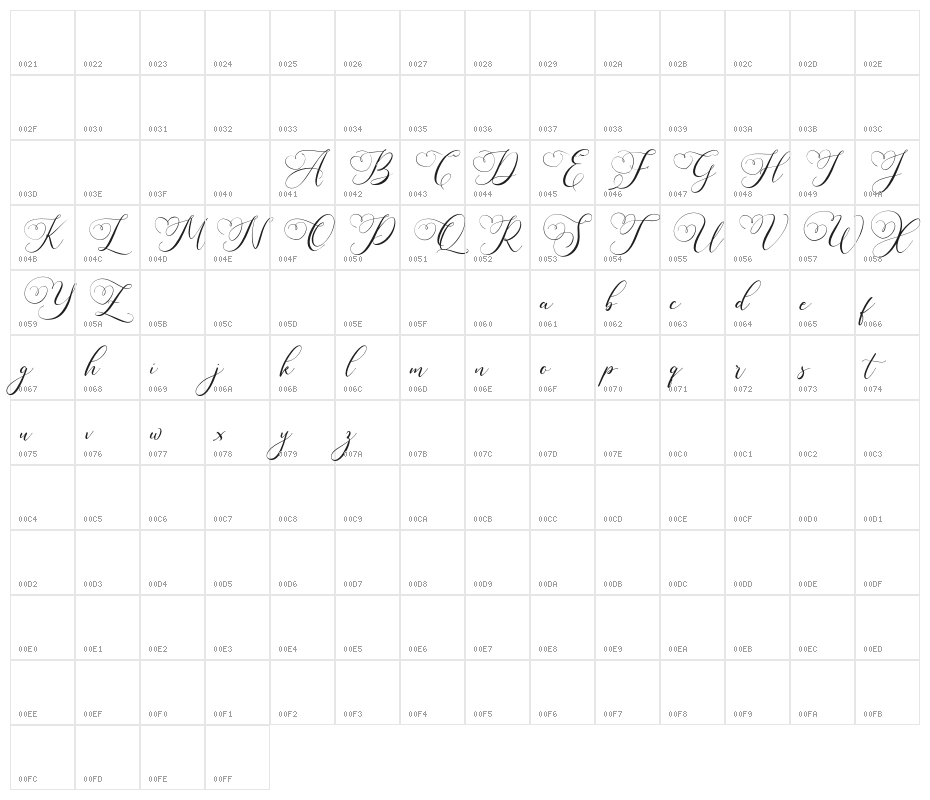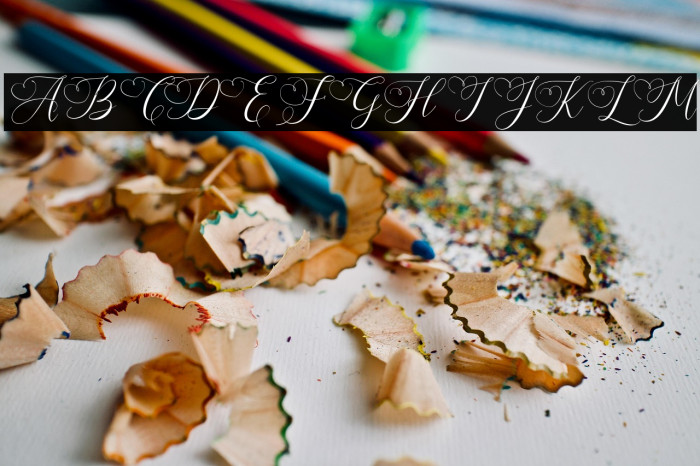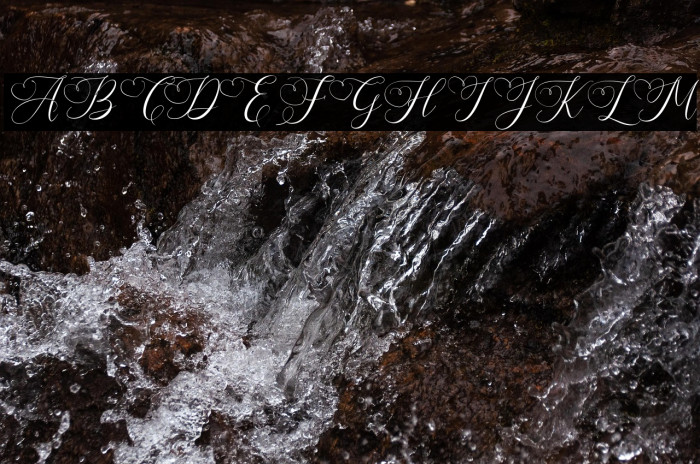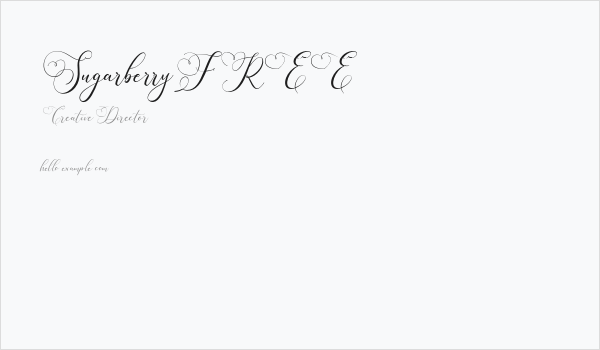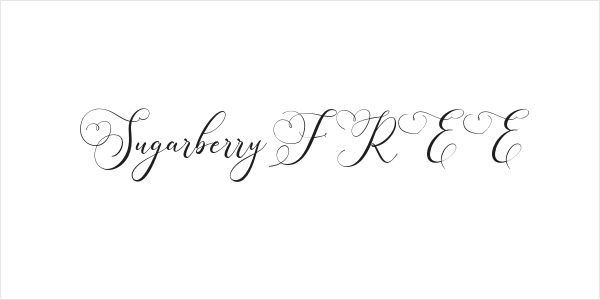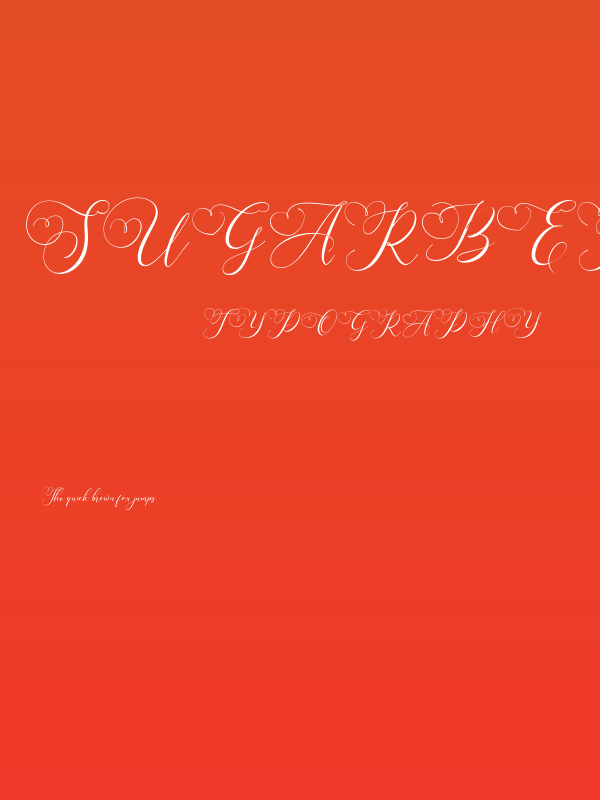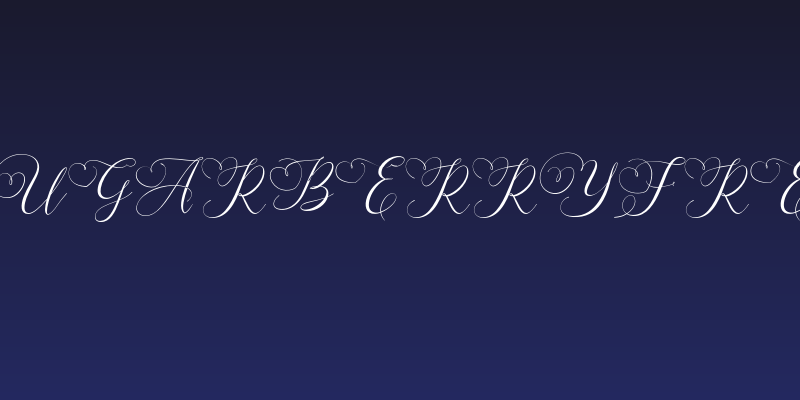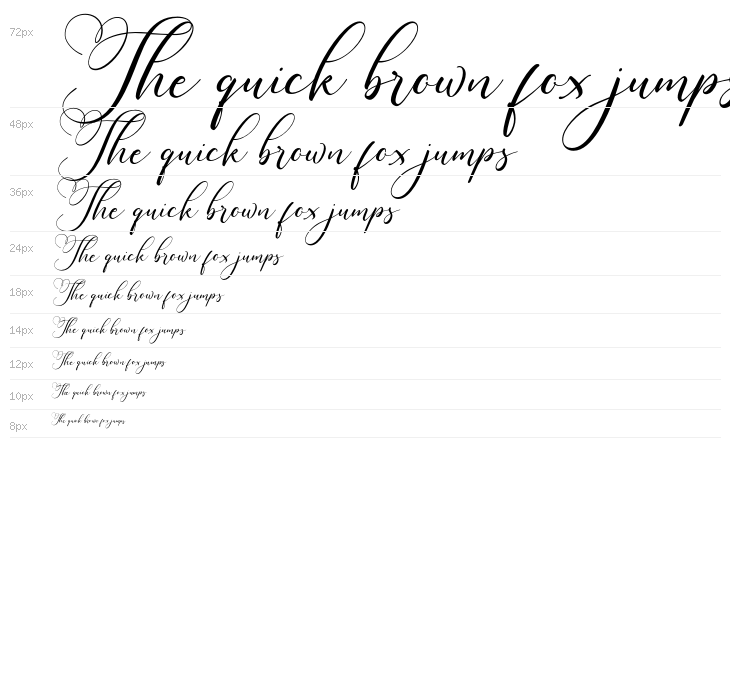
SugarberryFREE Font
SugarberryFREE Description
This elegant script font features a sophisticated and flowing design, characterized by its graceful curves and delicate swashes. The uppercase letters are adorned with intricate loops and flourishes, giving them a decorative and ornate appearance. The lowercase letters maintain a smooth and fluid connection, enhancing the font's calligraphic style. The overall look is both refined and artistic, making it suitable for formal and creative applications. The font's thin strokes and high contrast between thick and thin lines contribute to its elegant and stylish aesthetic.
| Use Case | Headlines, Invitations, Branding |
| Proposed Projects | Ideal for wedding invitations, elegant branding, greeting cards, and decorative headlines. |